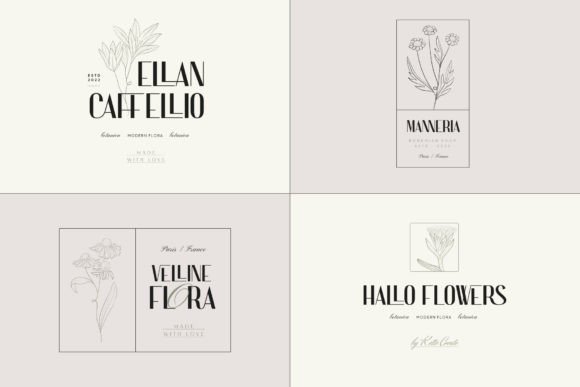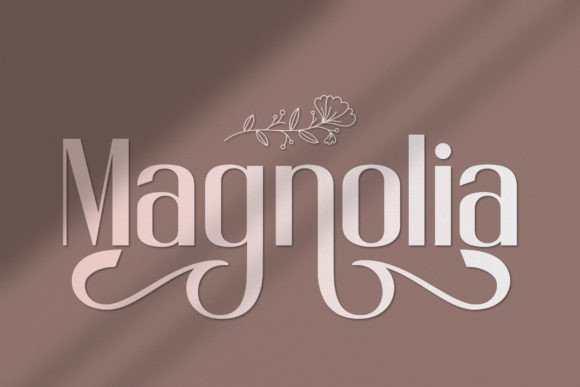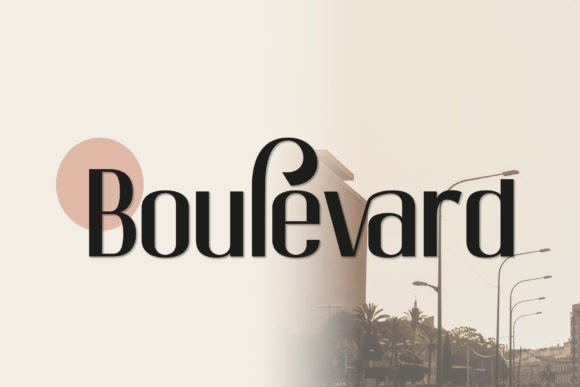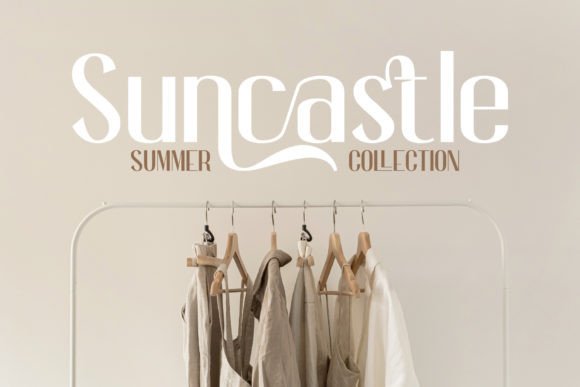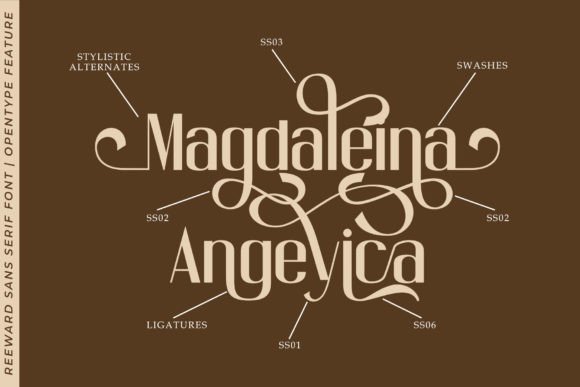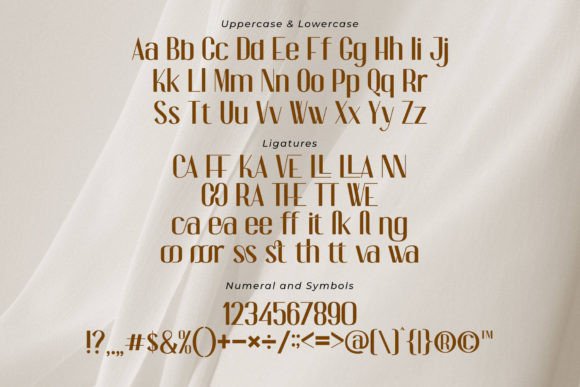
Introduction to Reeward Font
As designers, we’ve all been there – staring at a blank canvas, trying to bring our creative vision to life. The perfect font can make all the difference, elevating our design from good to great. That’s why we’re excited to introduce you to Reeward Font, a modern and elegant sans serif font that’s about to become your go-to design resource.
| 👤 Author | Madatype Studio |
With its beautiful ligatures and alternates, Reeward Font adds a touch of sophistication to any project. Whether you’re working on a high-end branding campaign or a wedding invitation, this versatile font will give your design a professional and refined look. And the best part? It’s easy to use, making it perfect for designers of all levels.
As a valuable addition to your design arsenal, Reeward Font is a must-have for any creative project. Plus, with its transparent background, you can easily apply it to a variety of design elements, from logos to business cards. So why wait? Grab Reeward Font today and take your designs to the next level.
Key Features of Reeward Font
- High-quality design resource ideal for creative projects, offering a professional look and feel.
- Features a unique, modern design with a range of styles and weights, perfect for adding visual interest to your project.
Honest Review: Reeward Font
I recently came across the Reeward Font and I’m excited to share my honest thoughts with you. As a designer, I’m always on the lookout for high-quality design resources to elevate my creative projects. The Reeward Font definitely fits the bill.
What works well: ✨ The font has a modern, sleek design that works beautifully for digital projects. The transparent background is a nice touch, allowing for seamless integration with any design. The font is also highly customizable, making it easy to adjust to suit your specific needs.
Some limitations: ⚠️ While the Reeward Font is free to download, it’s not without its limitations. The font family is relatively small, with only a few weights and styles available. Additionally, the font may not be suitable for print projects, as it’s optimized for digital use.
Overall, I’m impressed with the Reeward Font. It’s a solid design resource that’s perfect for digital projects. If you’re looking for a high-quality font to elevate your creative project, I’d definitely recommend giving the Reeward Font a try.
- Modern, sleek aesthetic
- Customizable
Tips for Getting the Most Out of Reeward Font
Use the Reeward Font with a transparent background to create a seamless design. Experiment with different font sizes and colors to add depth and visual interest to your project.
Common Use Cases for Reeward Font
The Reeward Font is perfect for creative projects such as social media graphics, posters, and flyers. It’s also great for use in presentations and documents where a high-quality, readable font is needed.